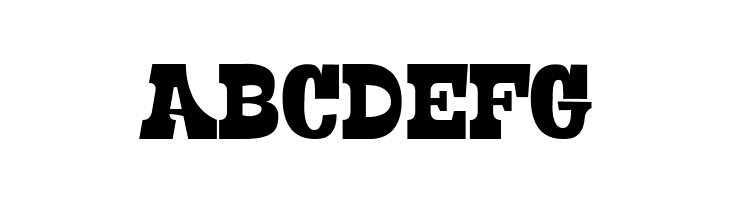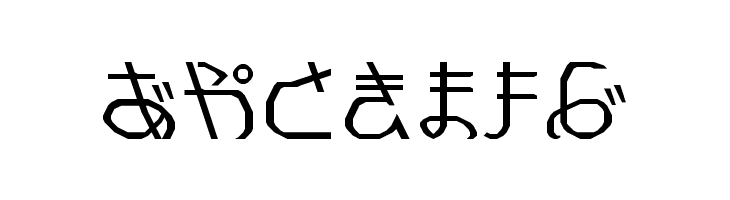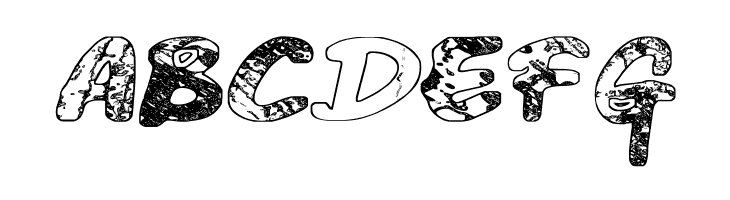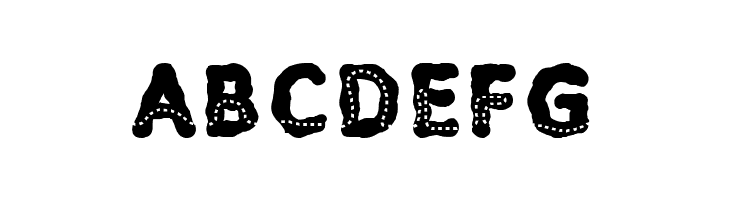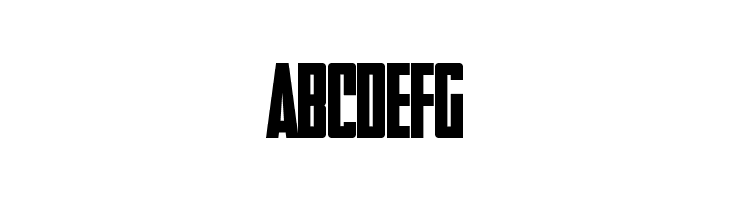
A bold, geometric font with a modern, condensed style.
A bold, block-like serif font with a vintage poster style.
A playful, textured font with a hand-drawn, bold style.
A rugged, textured font with a hand-crafted, vintage appearance.
A bold, playful font with a hand-drawn, textured style.
A modern, artistic font with geometric and organic elements.